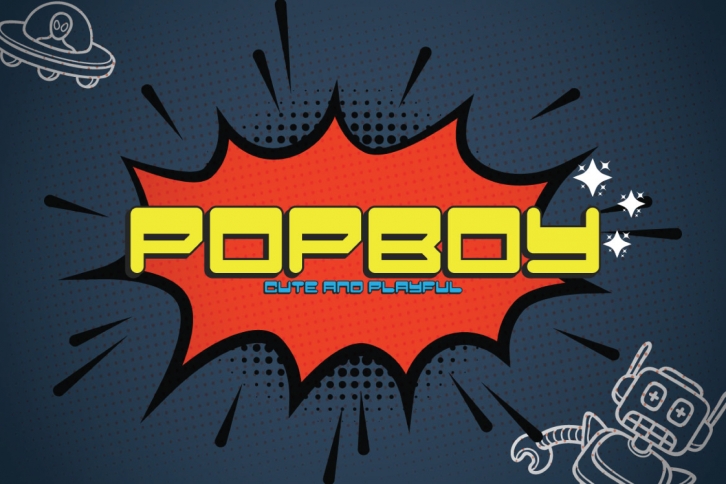
Popboy is a playful typeface with big, bold fonts perfect for fun quirky design jobs!
- Pobboy- A clean font including Upper & Lowercase characters(ALL CAPS),
- Numbers and Punctuation